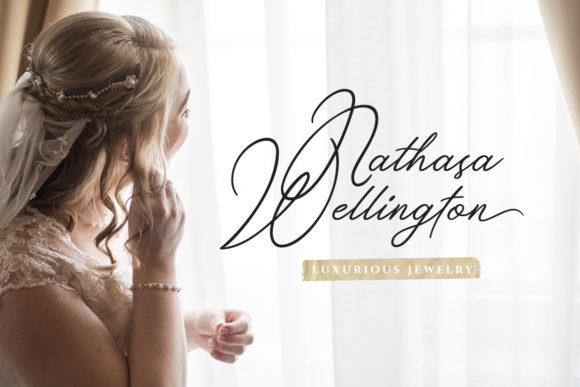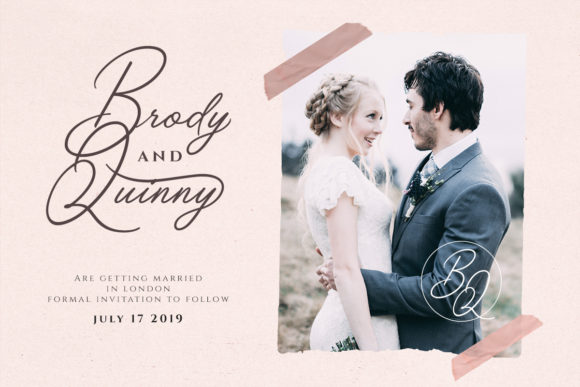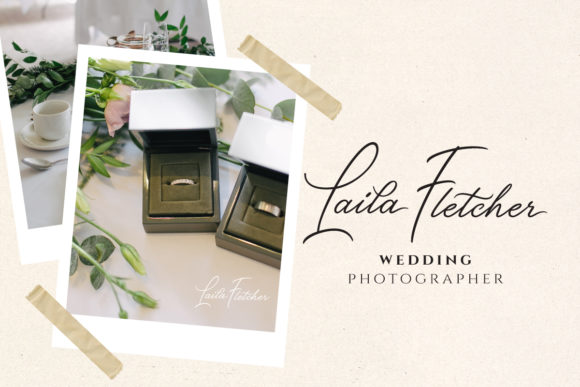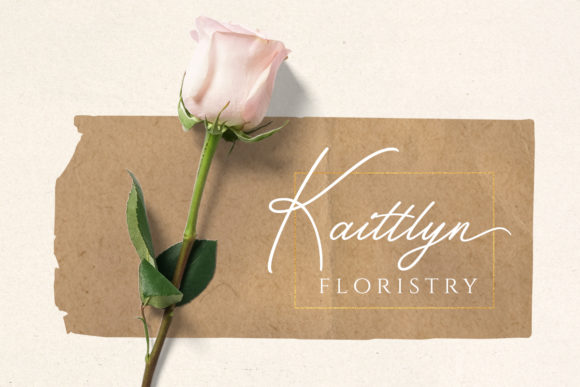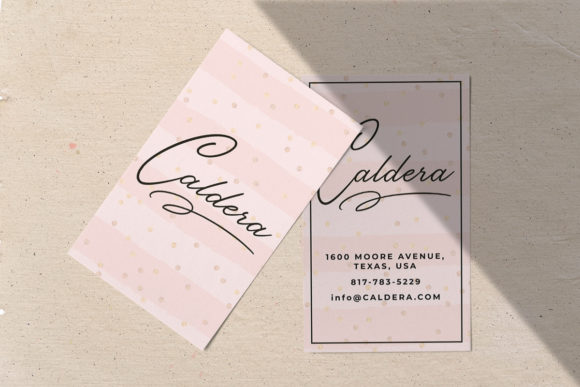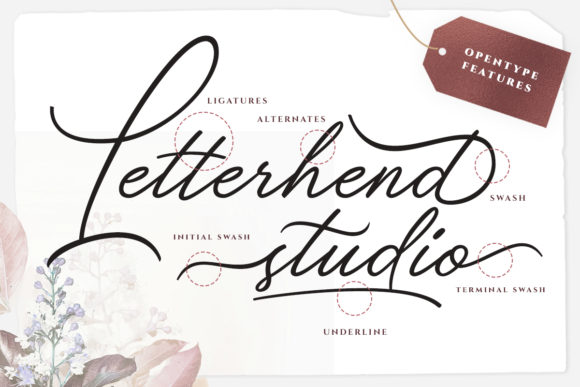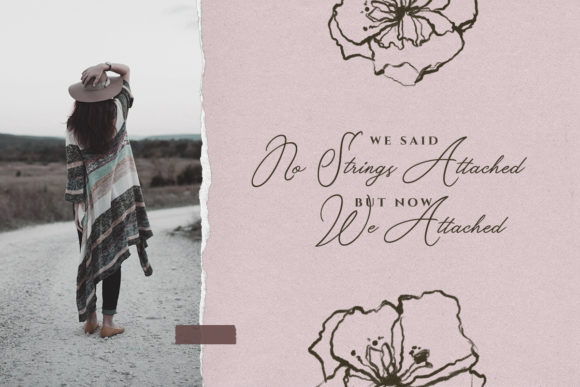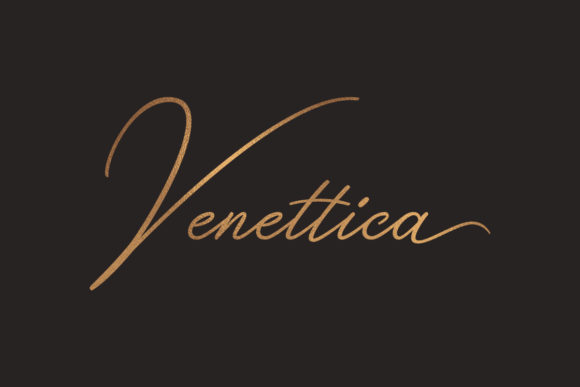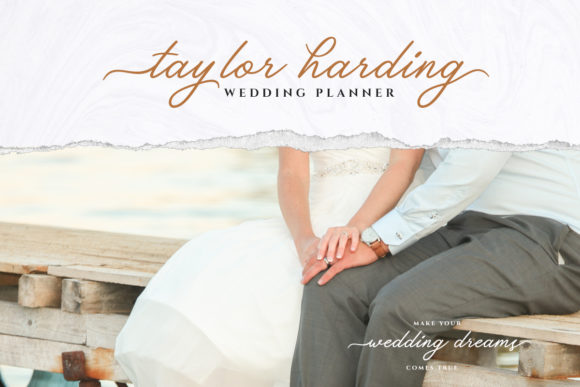
Venettica Signature Romantic Script Font
About Venettica Signature Romantic Script Font
Venettica is a friendly and modern script font with a unique style. It will add a romantic touch to any crafting project!